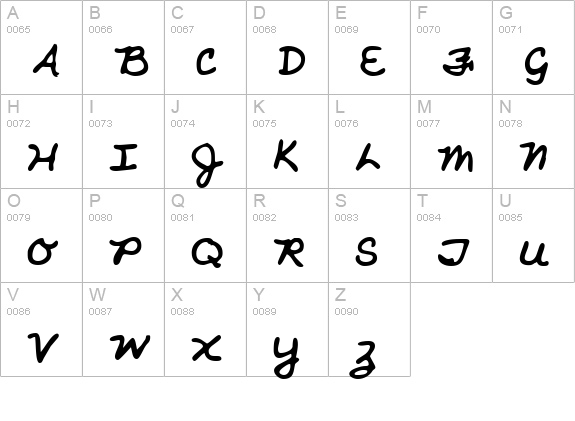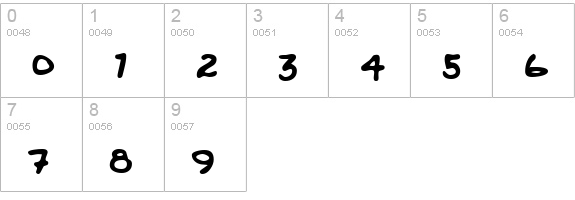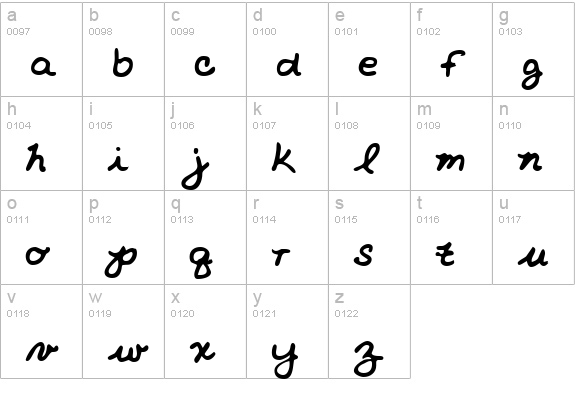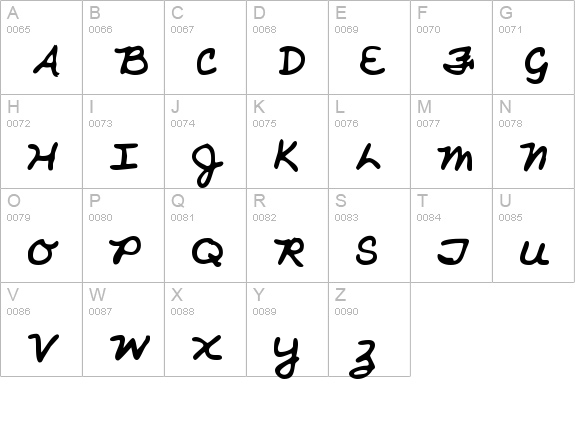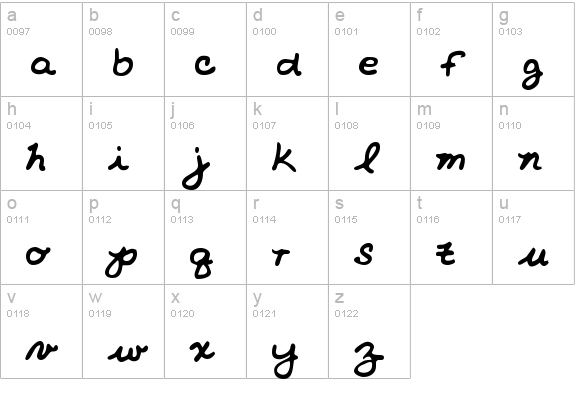
NicholesHand Regular is the standard, neutral variant in the NicholesHand typeface family \xE2\x80\x94 well suited to general body text, paragraphs, and standard typographic work.
NicholesHand Regular is a charming and versatile handwritten font that exudes a sense of warmth and friendliness. With its smooth curves and flowing strokes, this font is perfect for adding a personal touch to any project. Whether you're designing invitations, cards, or social media graphics, NicholesHand Regular will bring a touch of handmade elegance to your work. Best of all, NicholesHand Regular is available for free download at FontsMarket.com. This means you can easily add this lovely font to your collection without having to spend a penny. Don't miss out on the opportunity to enhance your designs with the beauty and character of NicholesHand Regular – download it today and let your creativity shine!